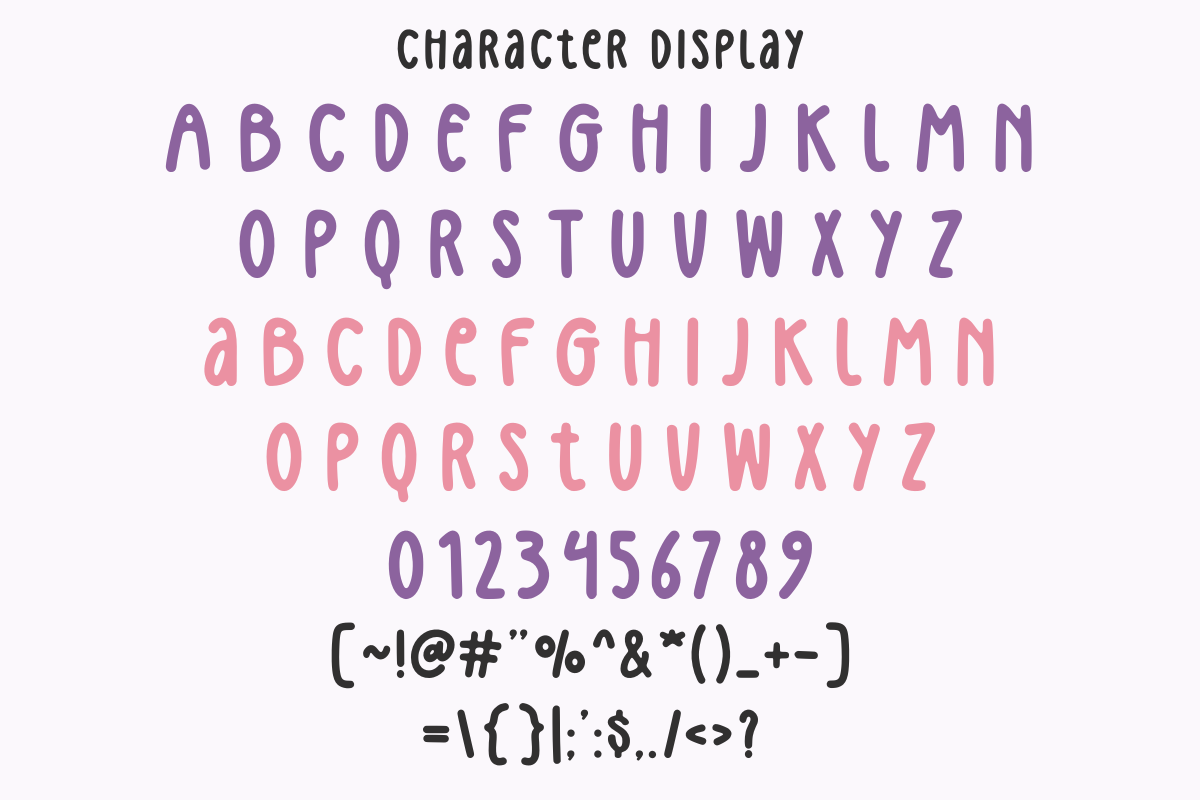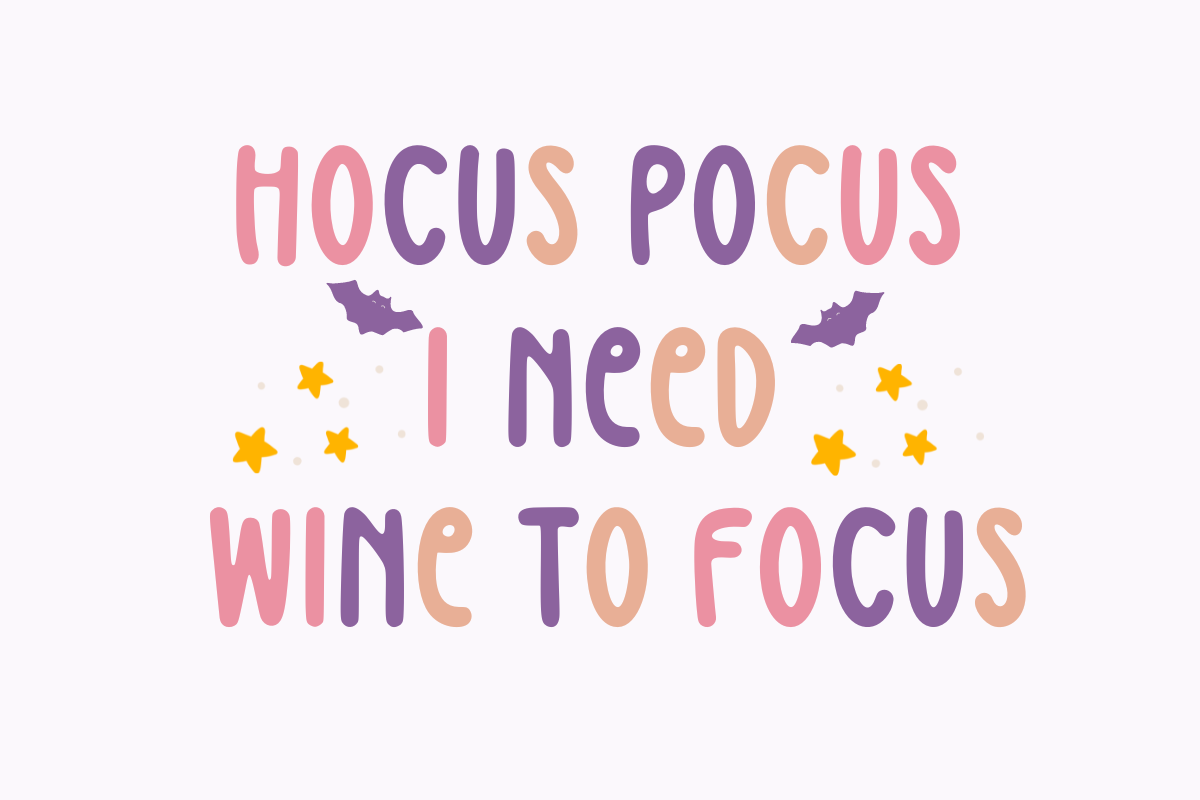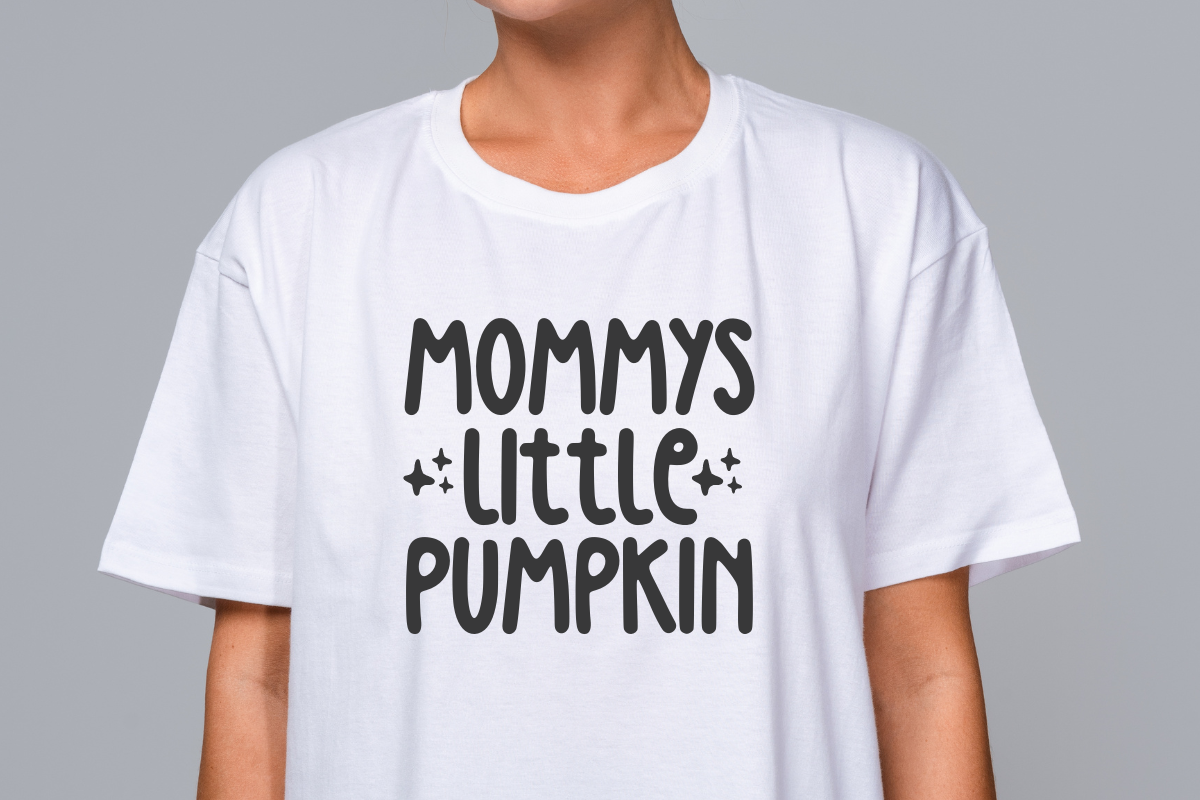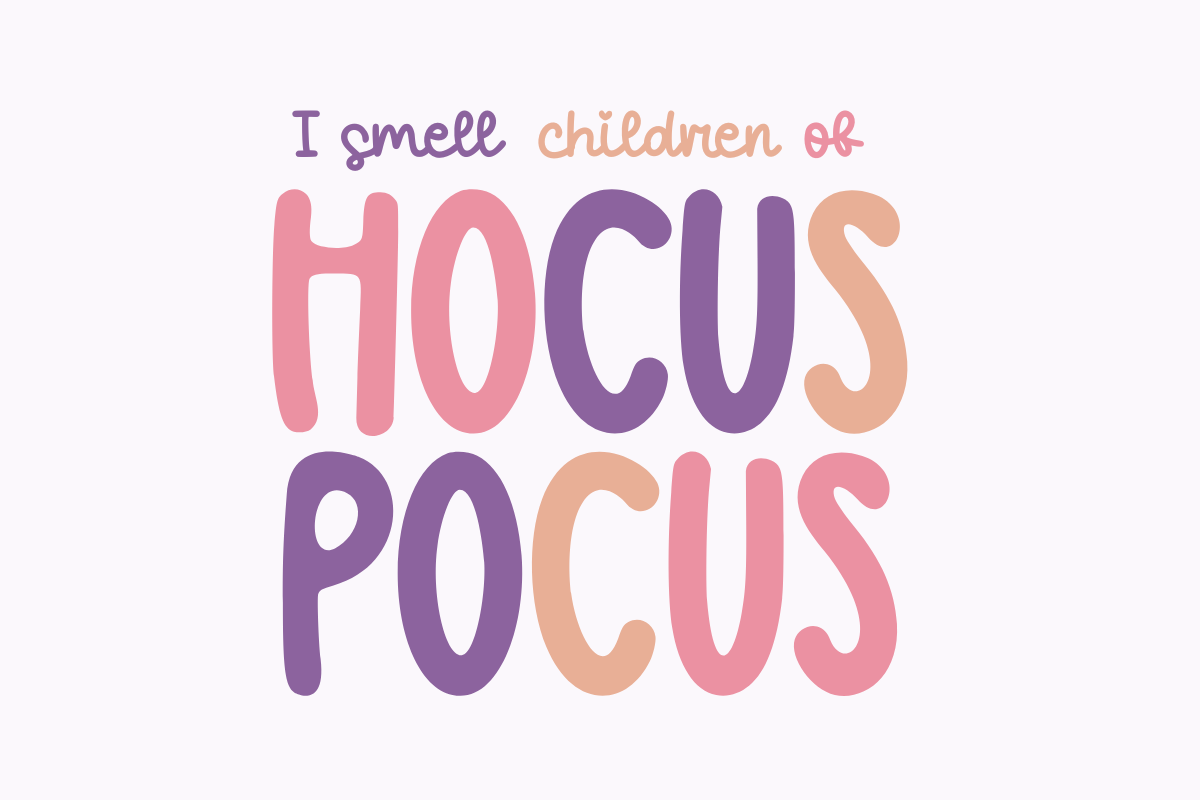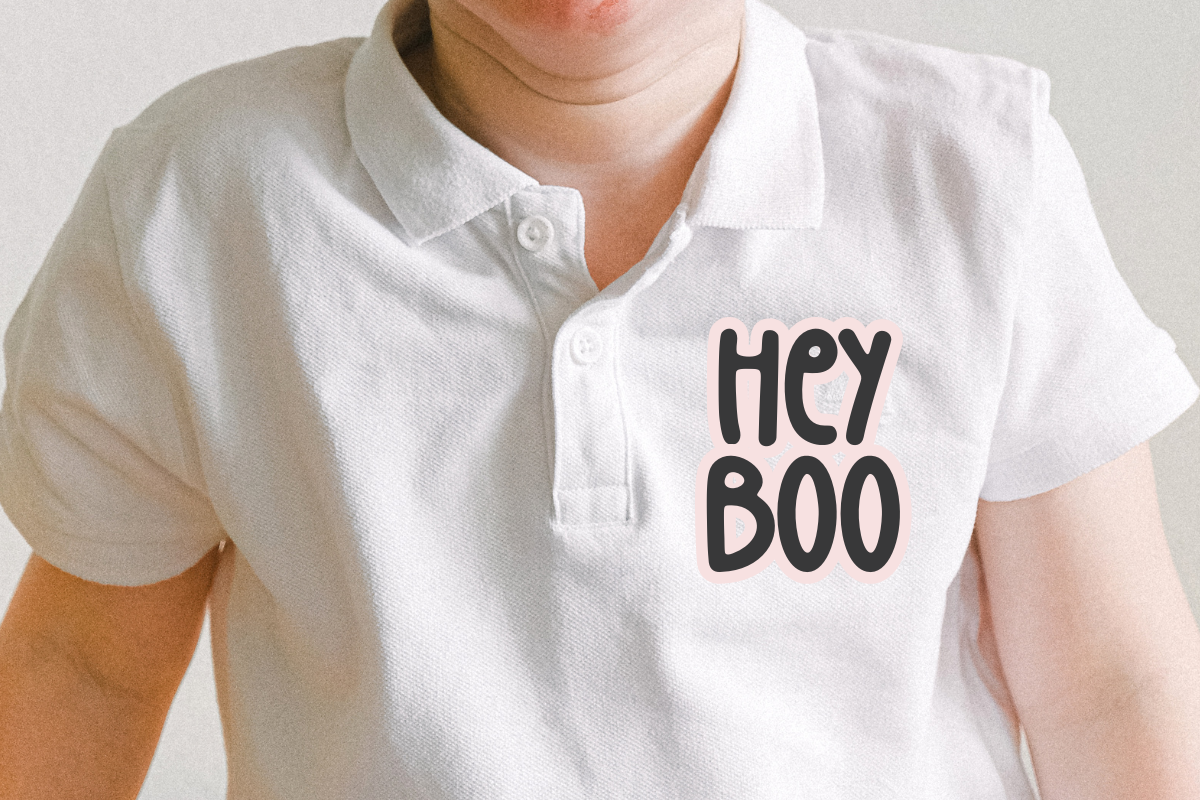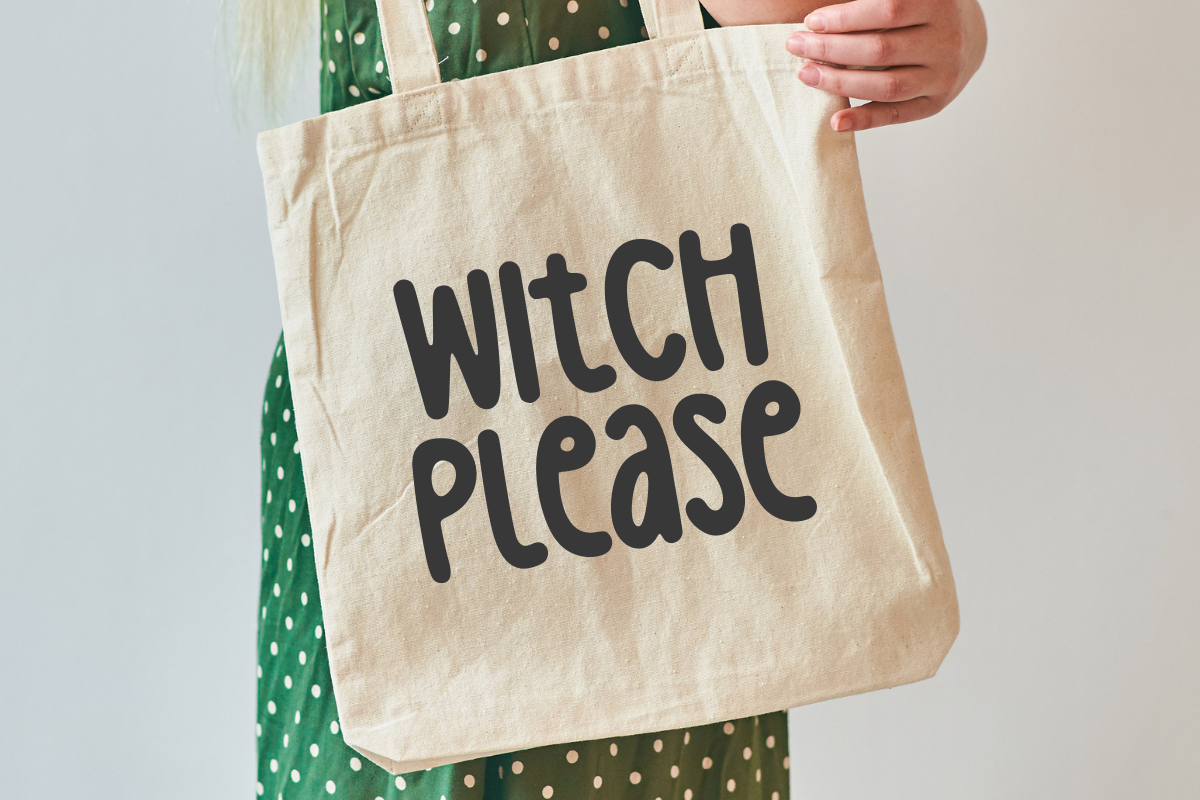
Ghostes Season - Handwritten Display
Ghostes Season is a wonderfully bold and chunky handwritten display font that captures a cute, modern, and slightly spooky aesthetic, perfect for the Halloween and Fall season. This seasonal font features thick, rounded characters with a playful, irregular bounce, making it ideal for Halloween party invitations, spooky kids' branding, fun t-shirt designs, and engaging social media posts. Its high visibility and cheerful style ensure it is a powerful display typeface for crafters and designers seeking a unique, youthful horror vibe. Capture the spirit of the haunted season with this delightful Halloween chunky font!